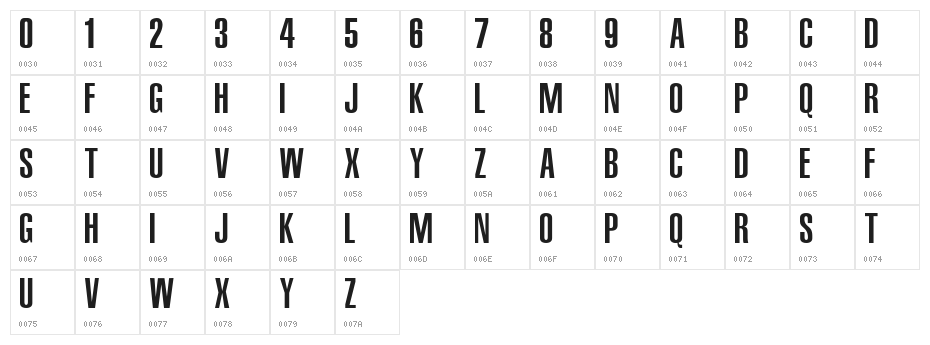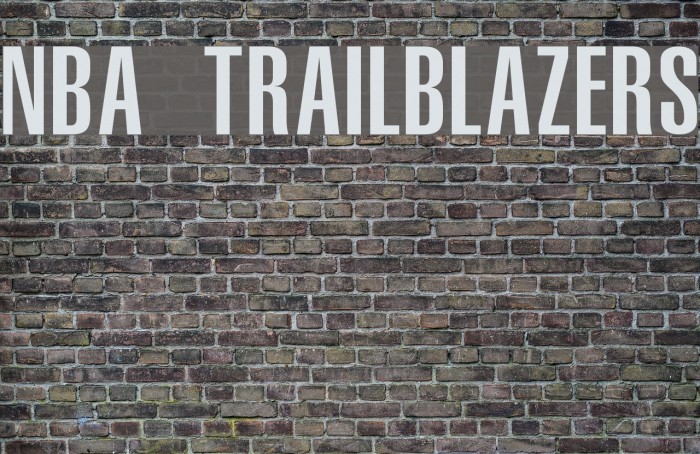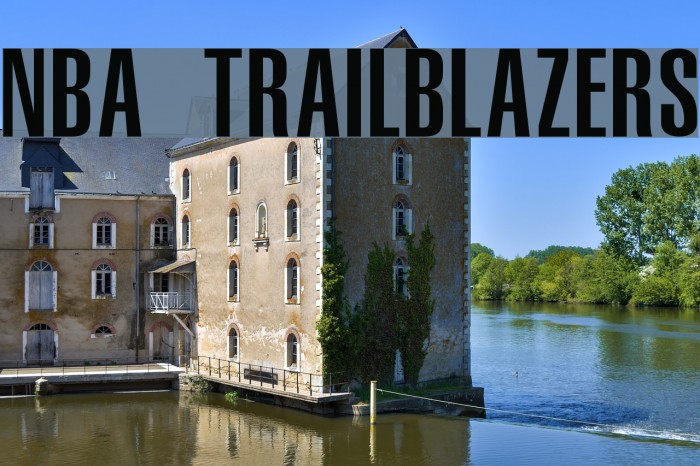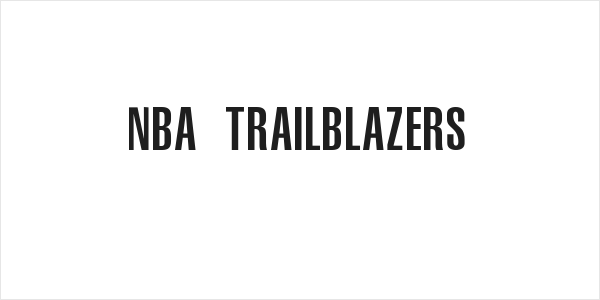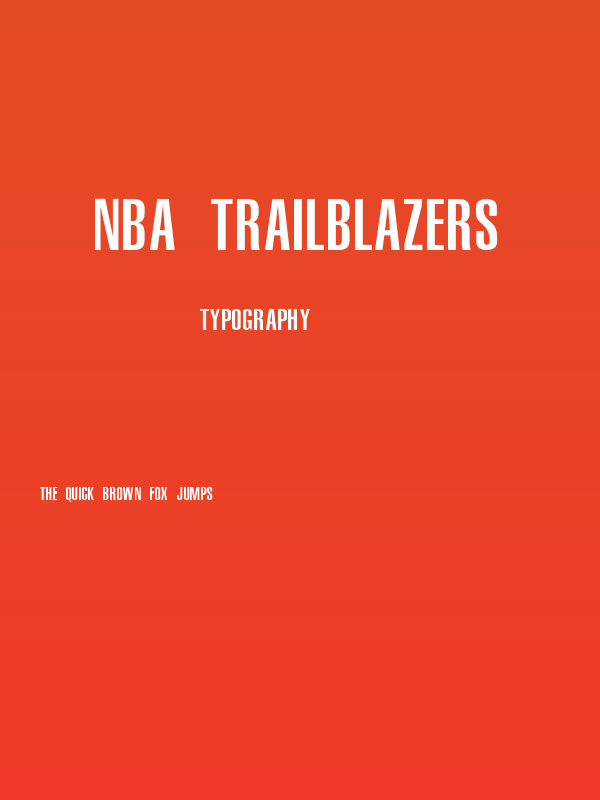
NBA Trailblazers Font
NBA Trailblazers Description
This font features a bold and impactful design with tall, narrow characters that convey a sense of strength and modernity. The uppercase letters are uniform in height, creating a cohesive and structured appearance. The numbers follow the same style, ensuring consistency across all characters. The absence of lowercase letters and special characters suggests a focus on clarity and simplicity. The font's clean lines and lack of serifs contribute to its contemporary aesthetic, making it suitable for a variety of design applications where a strong visual presence is desired.
| Proposed Projects | Ideal for sports branding, team logos, posters, and headlines where a strong and modern look is essential. |